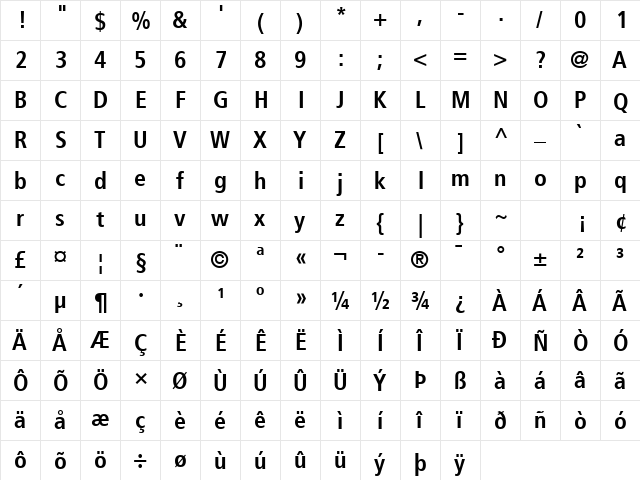
Frutiger LT Com 67 Bold Condensed
| Foundry | Linotype GmbH |
| Designer | Adrian Frutiger |
Design Context for Frutiger LT Com Typeface
Frutiger LT Com is a composed and adaptable typeface that performs quietly and consistently across a wide range of design contexts. Its bold stroke weight gives it real presence on the page. The condensed width makes it efficient for tight spaces without sacrificing legibility.